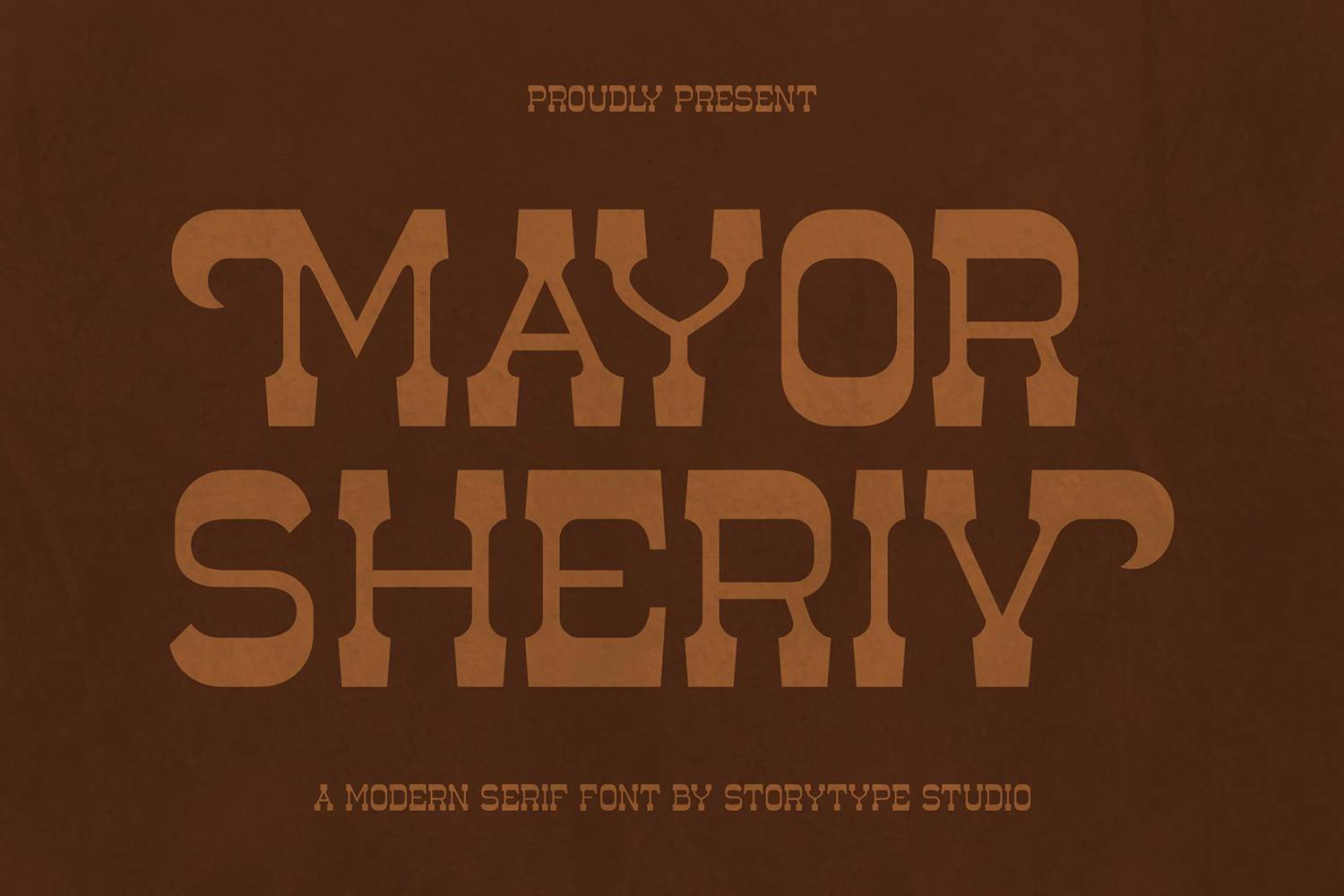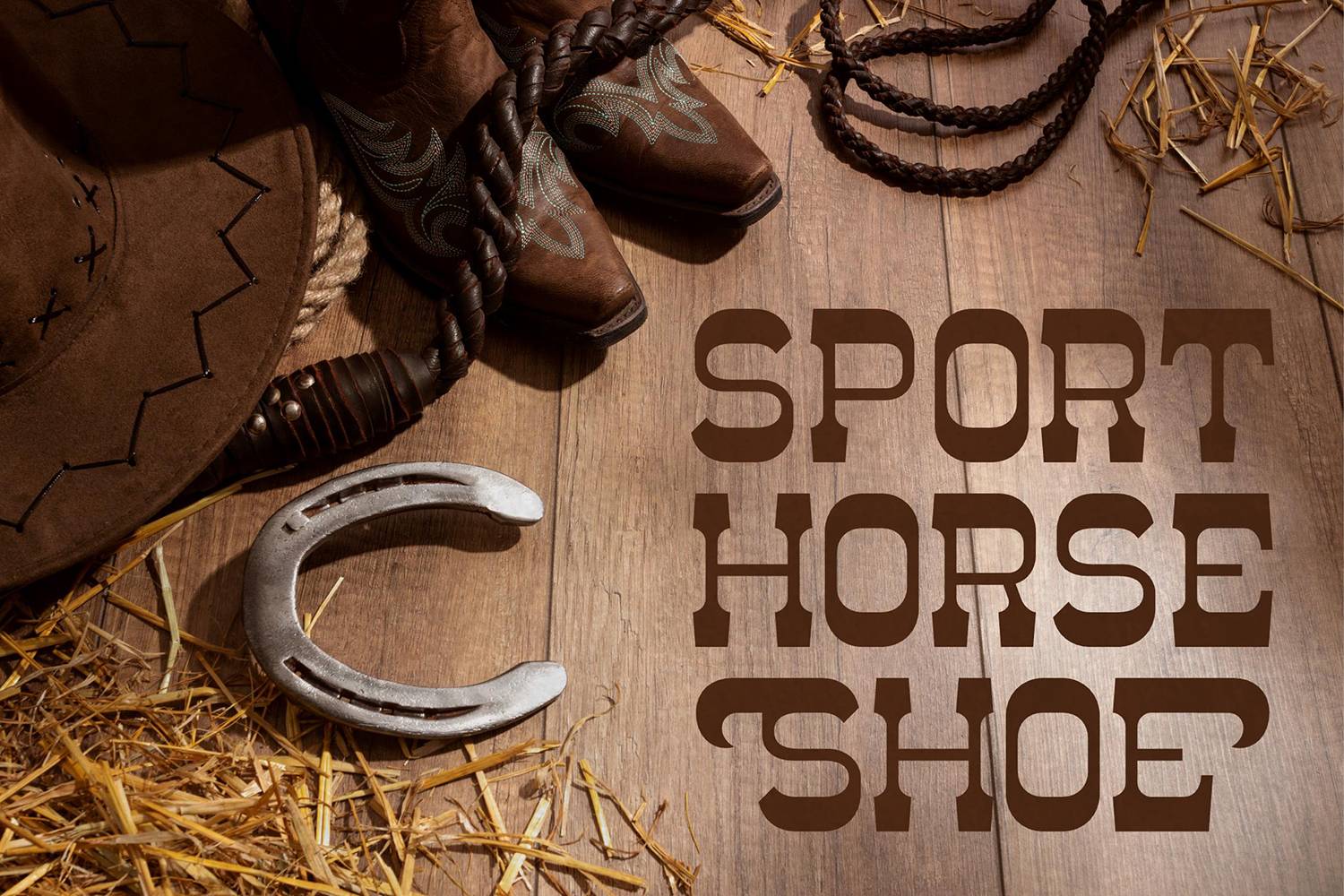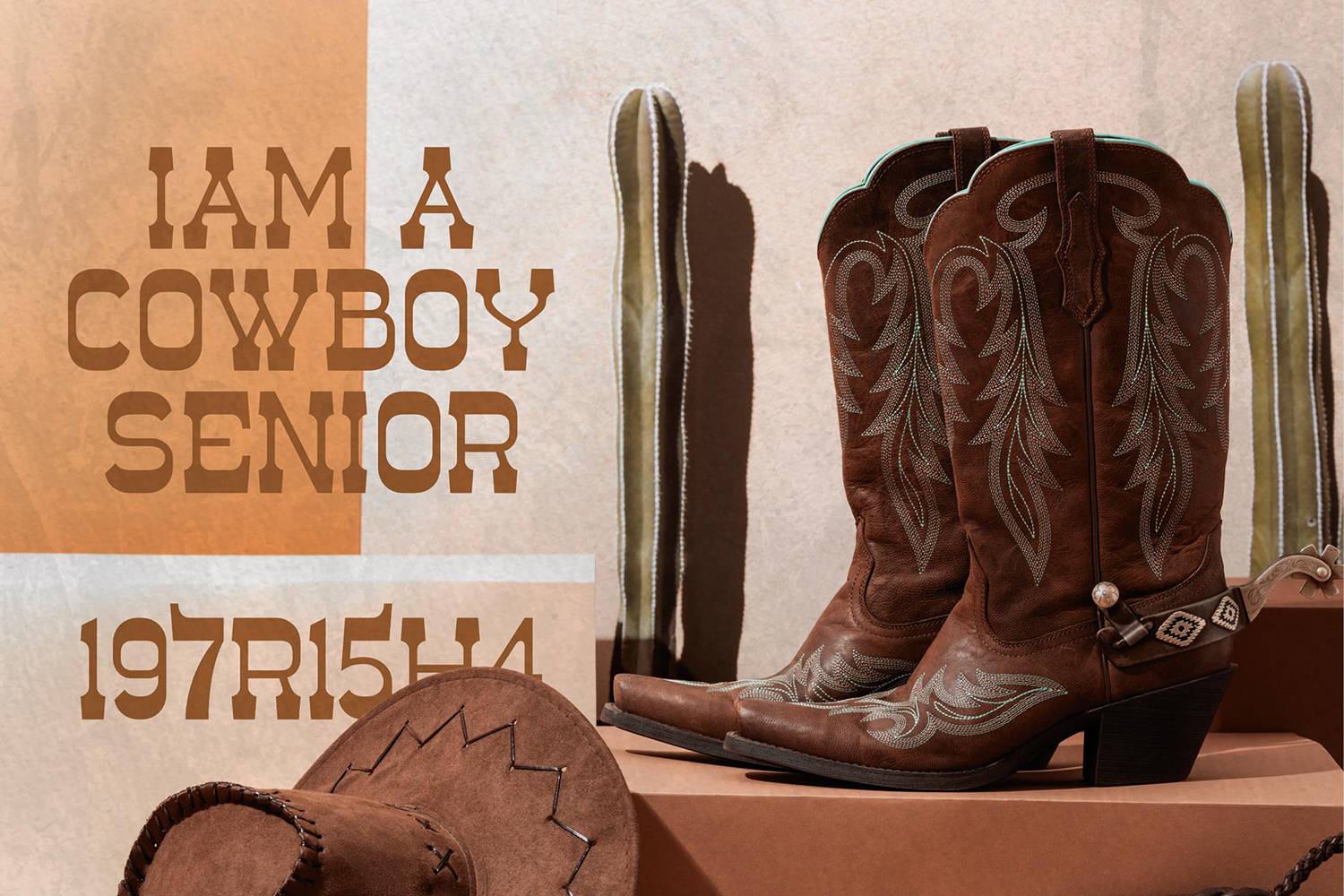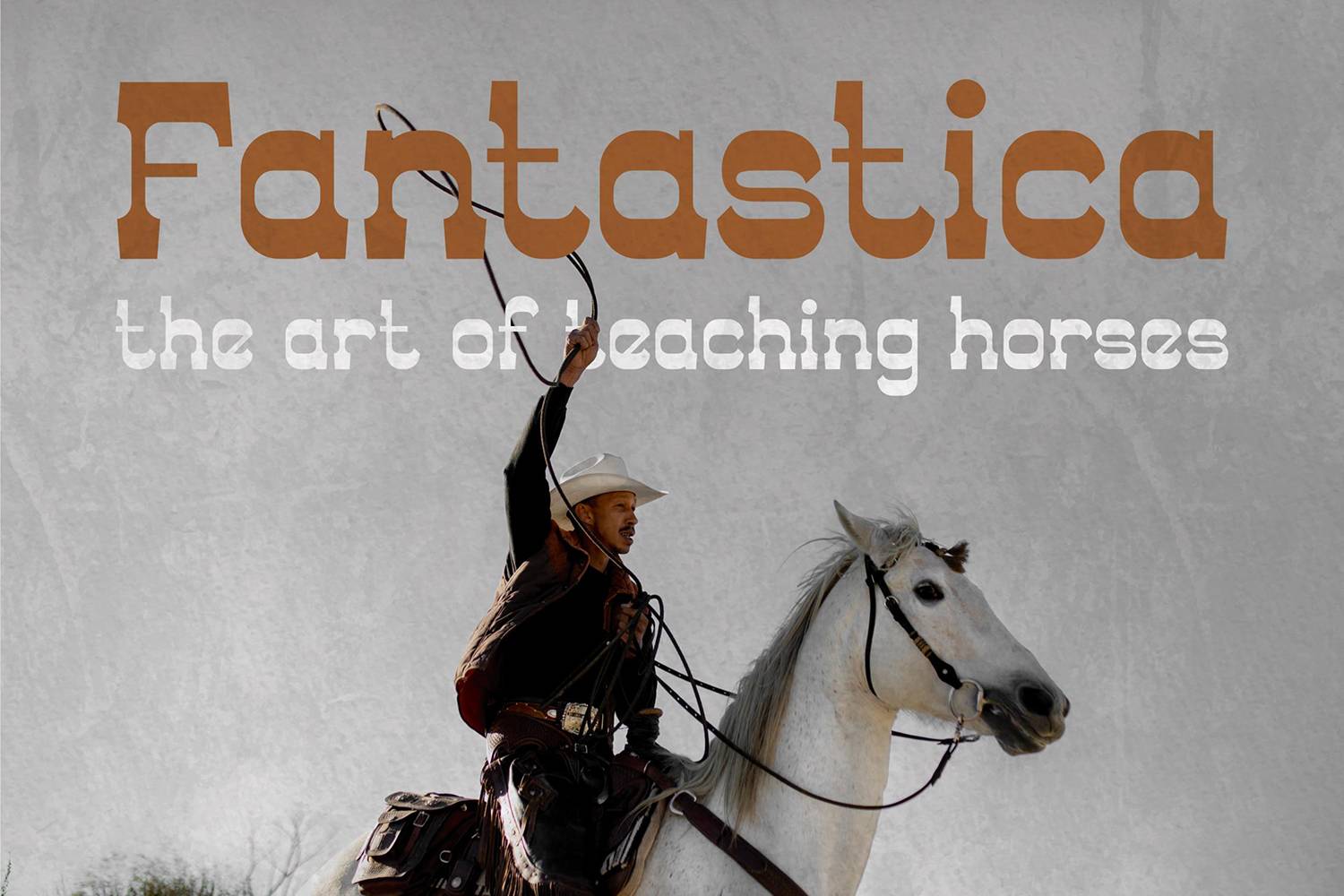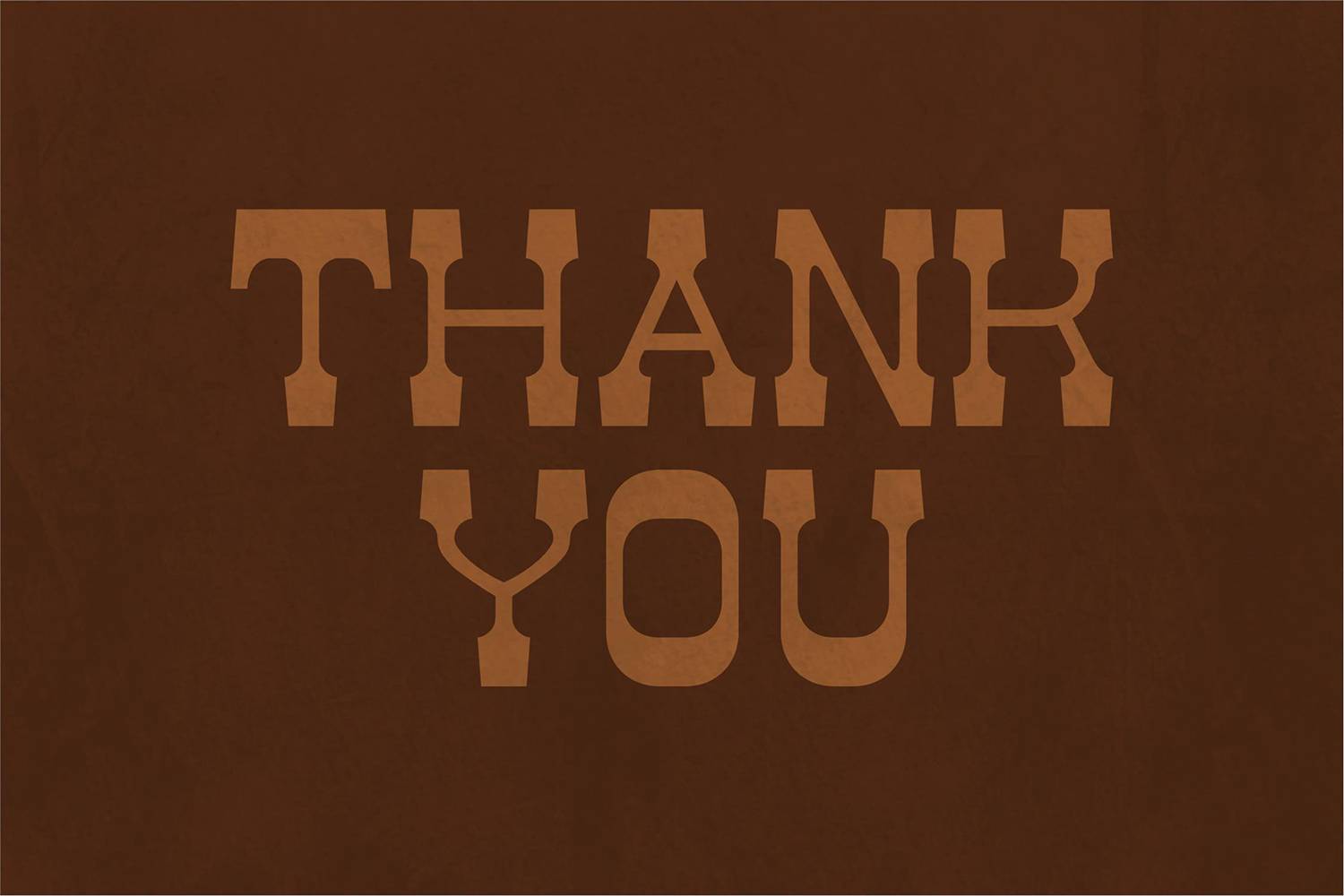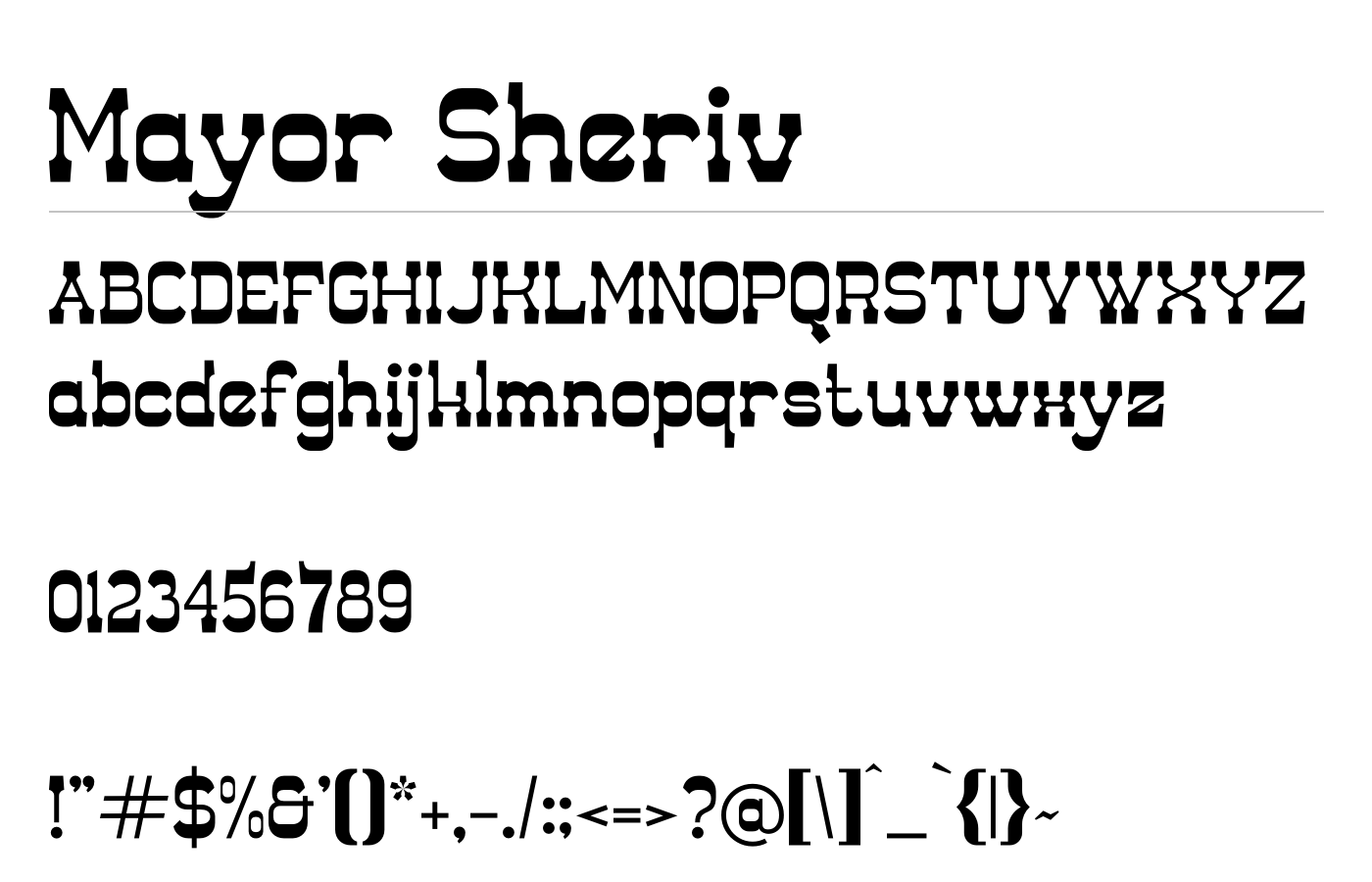
Mayor Sheriv is a bold slab serif font combining strong, blocky serifs with unique, quirky letterforms that lend it a playful yet confident personality. Its medium x-height and moderate stroke contrast create good readability while the distinct shapes, like the sturdy serifs and irregular curves, give it a vintage, handcrafted feel. This font works well for eye-catching headlines, logos, and packaging where a mix of strength and character is desired.
Mayor Sheriv Font
About Mayor Sheriv Font